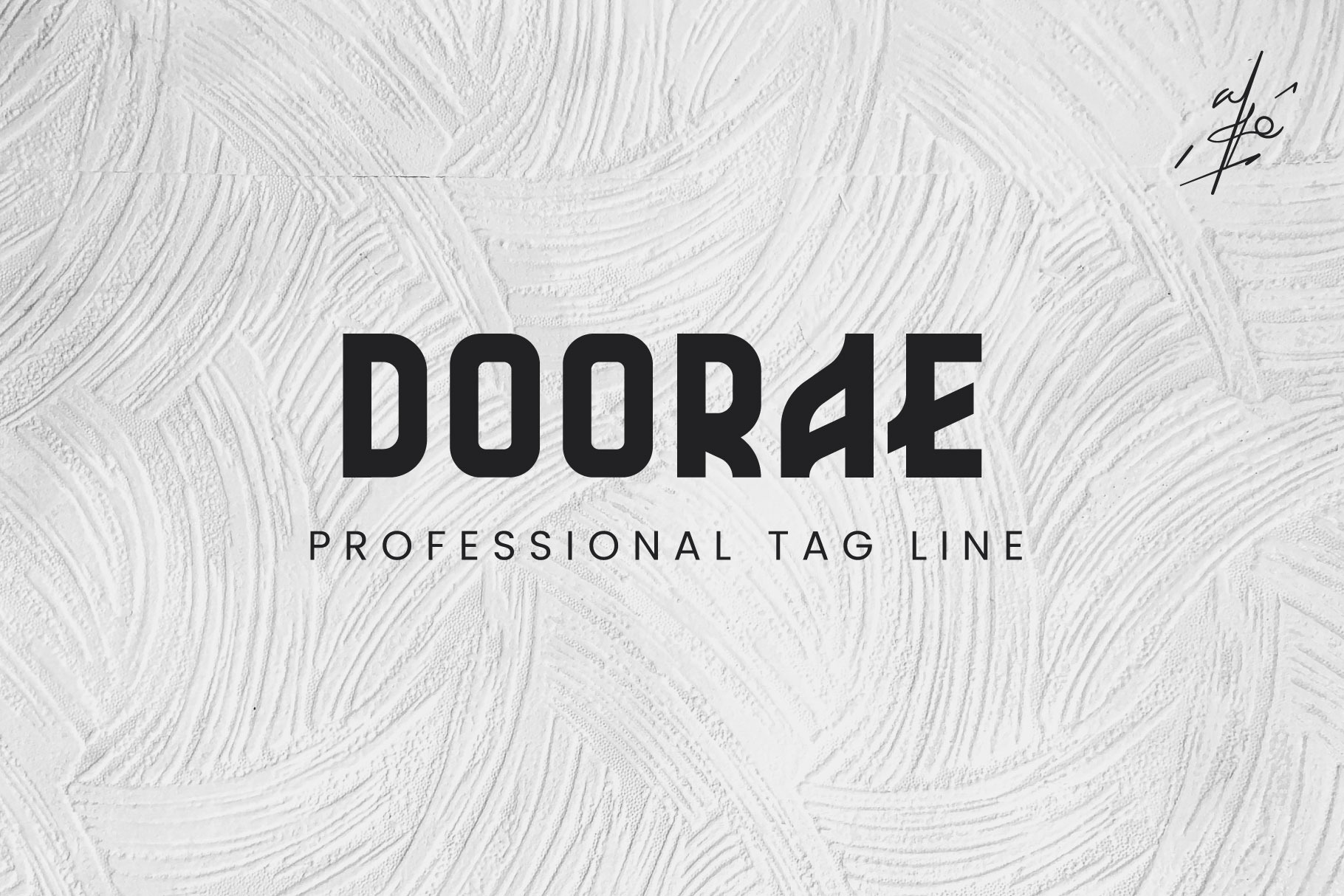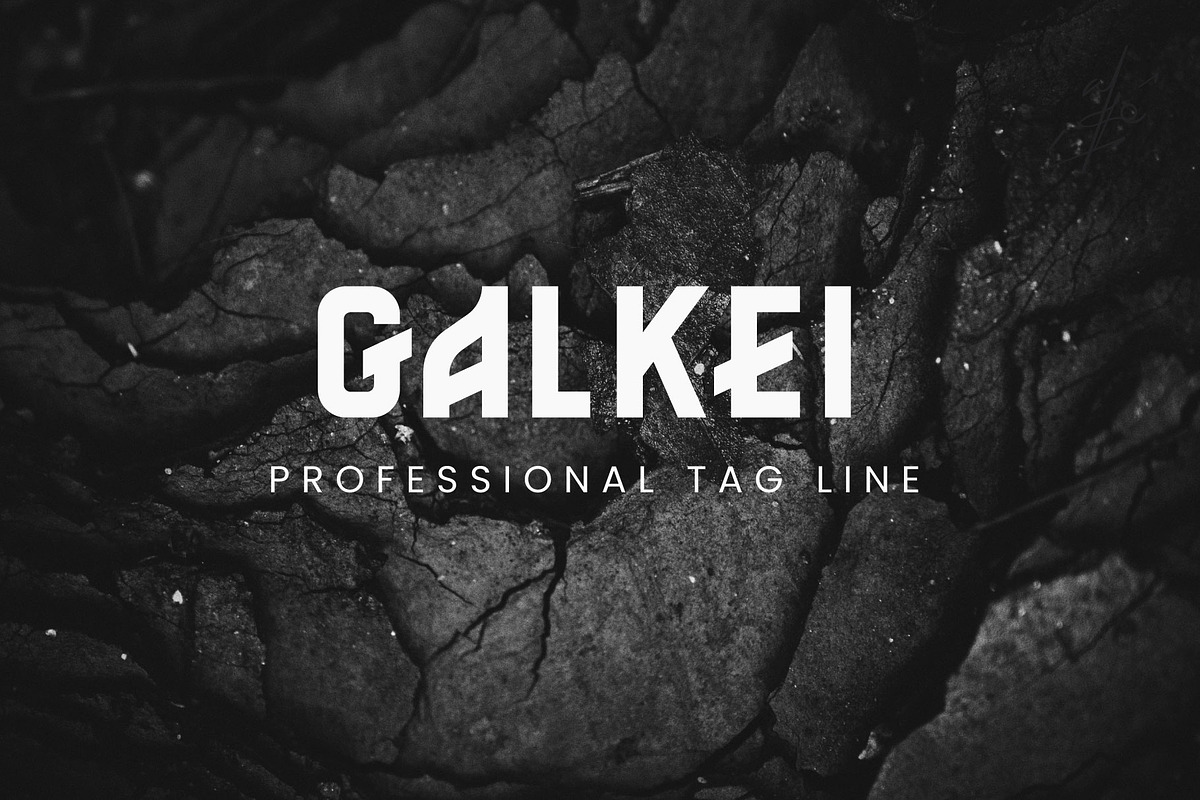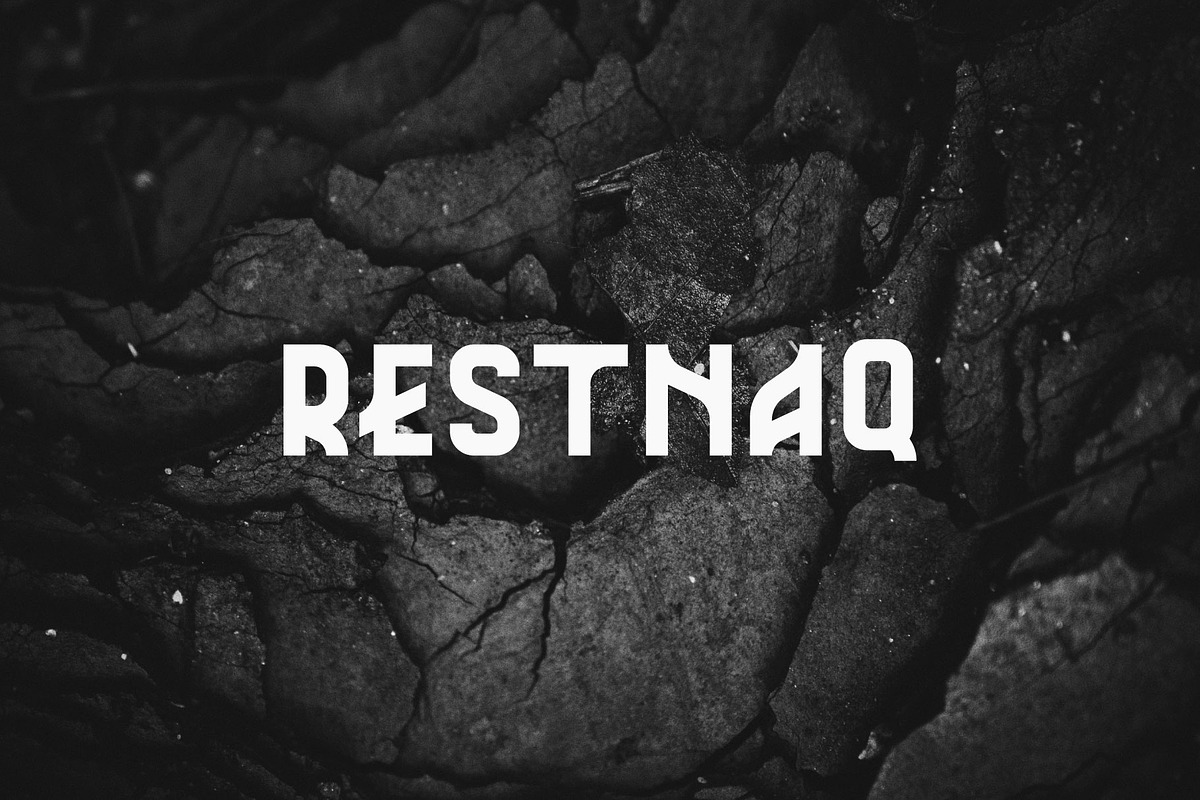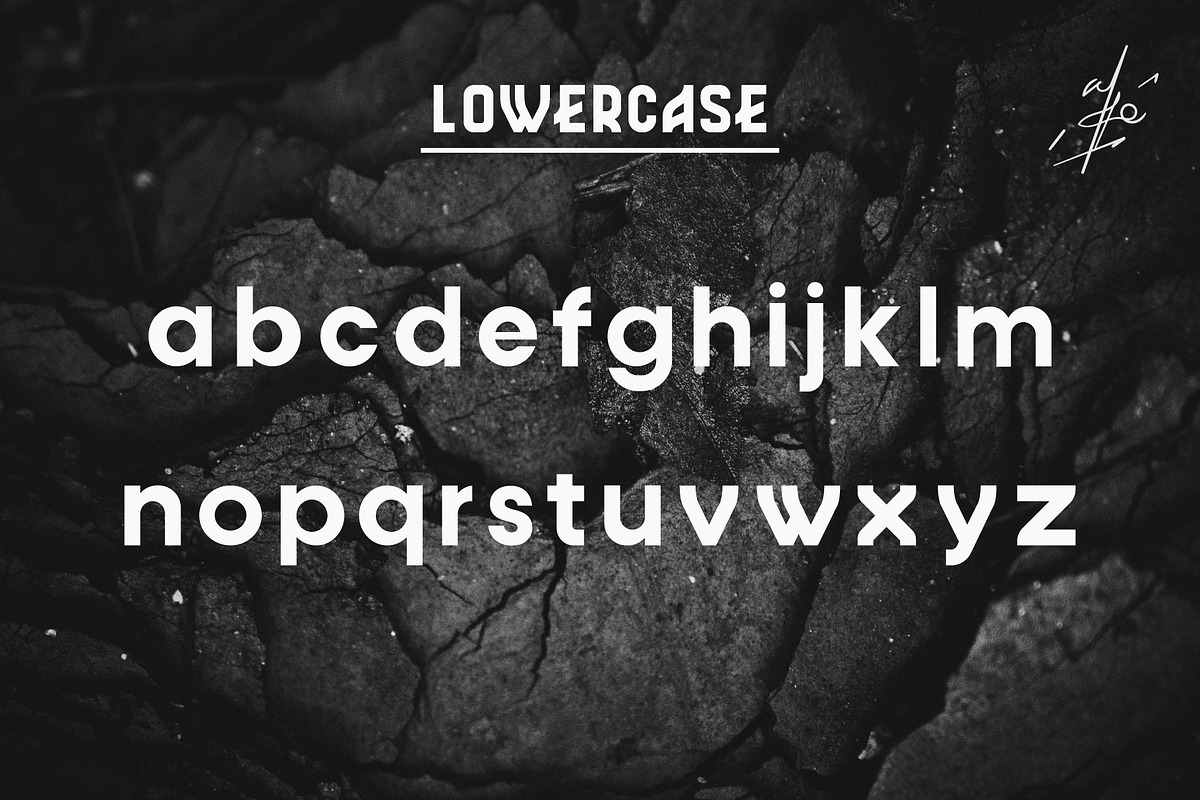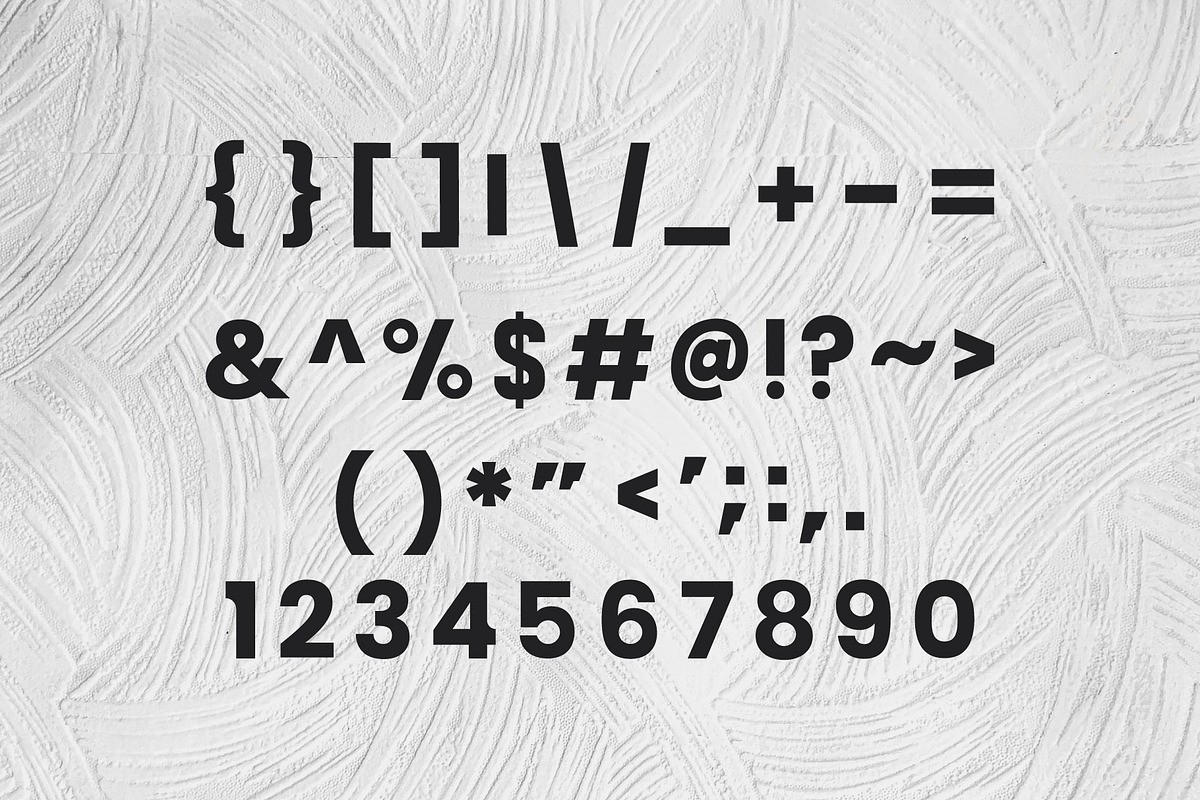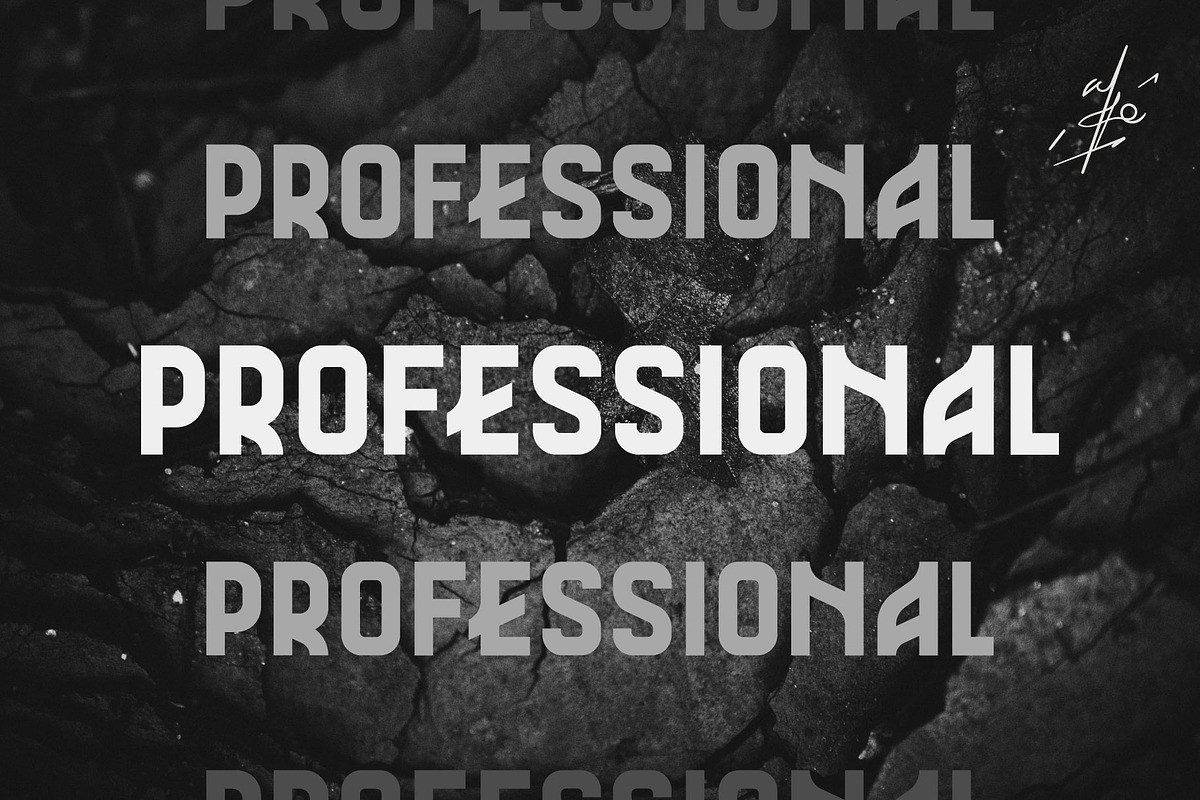
Doorae Font Sans Serif
Doorae bold is a custom font for your professional logo, branding, you can use it for projects that require bold and strong titles.
Each character is designed for a good logo, not suitable for use with a combination of upper and lower case letters, for example "Doorae", this font is designed by writing only uppercase letters "DOORAE" or only lowercase letters "doorae".